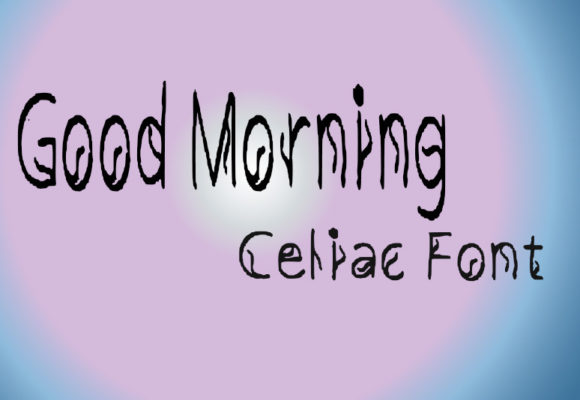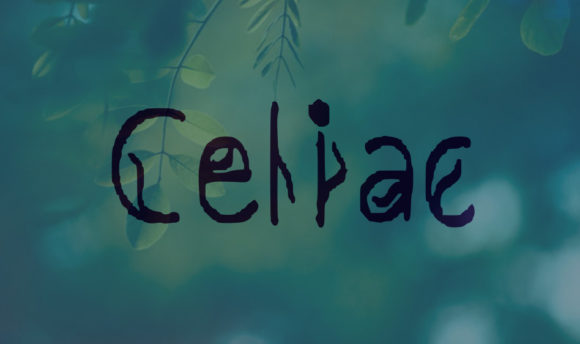
I still remember the design project that led me to discover the Celiac font. I was working on a branding project for a local bakery, and I needed a font that was both elegant and easy to read. After hours of searching through font libraries and testing out different options, I stumbled upon Celiac. Its simple, brushed display style immediately caught my eye, and I knew I had found the perfect fit. In this article, I’ll share my experience with the Celiac font, its features, and how to make the most of it in your designs.
What I Love About Celiac Font
- ✨ Simple and clean design that’s easy on the eyes
- 💡 Unique brushed style that adds a touch of elegance to any design
- 🎨 Versatile and can be used for a wide range of projects, from branding to crafting
While Celiac font is an excellent choice for many design projects, there are a few things to keep in mind:
- ⚠️ Limited character set: Celiac font might not have all the special characters or glyphs you need for a specific project.
- 🤔 Not ideal for body text: While it’s legible, Celiac font is best used for headings, titles, or short paragraphs.
The Story Behind Celiac Font
Celiac font was designed with the intention of creating a clean, elegant, and highly legible display font. The designer aimed to create a font that would be versatile and easy to use, with a unique brushed style that adds a touch of sophistication to any design. While the exact story behind Celiac font may be unknown, its design is undoubtedly inspired by a passion for typography and a desire to create something beautiful and functional.
| Author | Gold Nib Studio |
Q: What is the Celiac font best used for?
A: Celiac font is best used for projects that require a clean, elegant, and highly legible display font, such as branding, packaging, advertising, and crafting.
Q: Is Celiac font suitable for body text?
A: While Celiac font is legible, it’s best used for headings, titles, or short paragraphs. For body text, consider using a font with a larger character set and more optimized for reading.